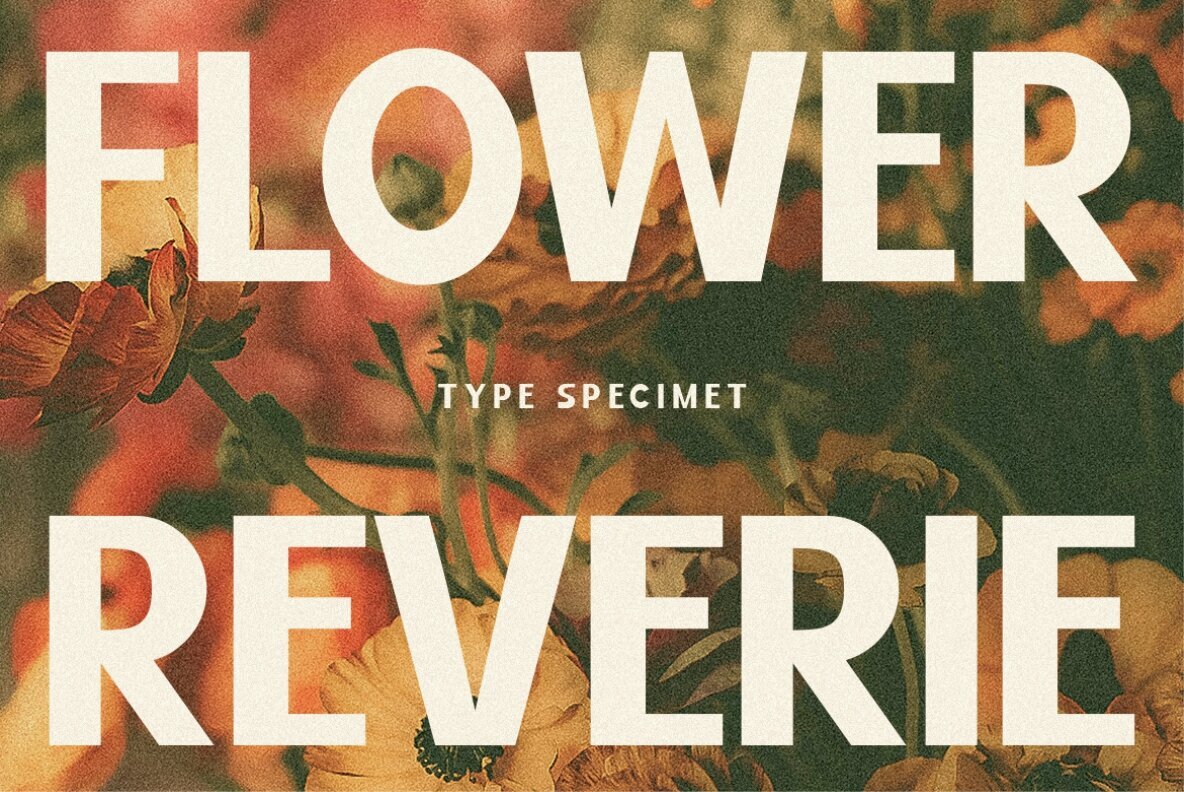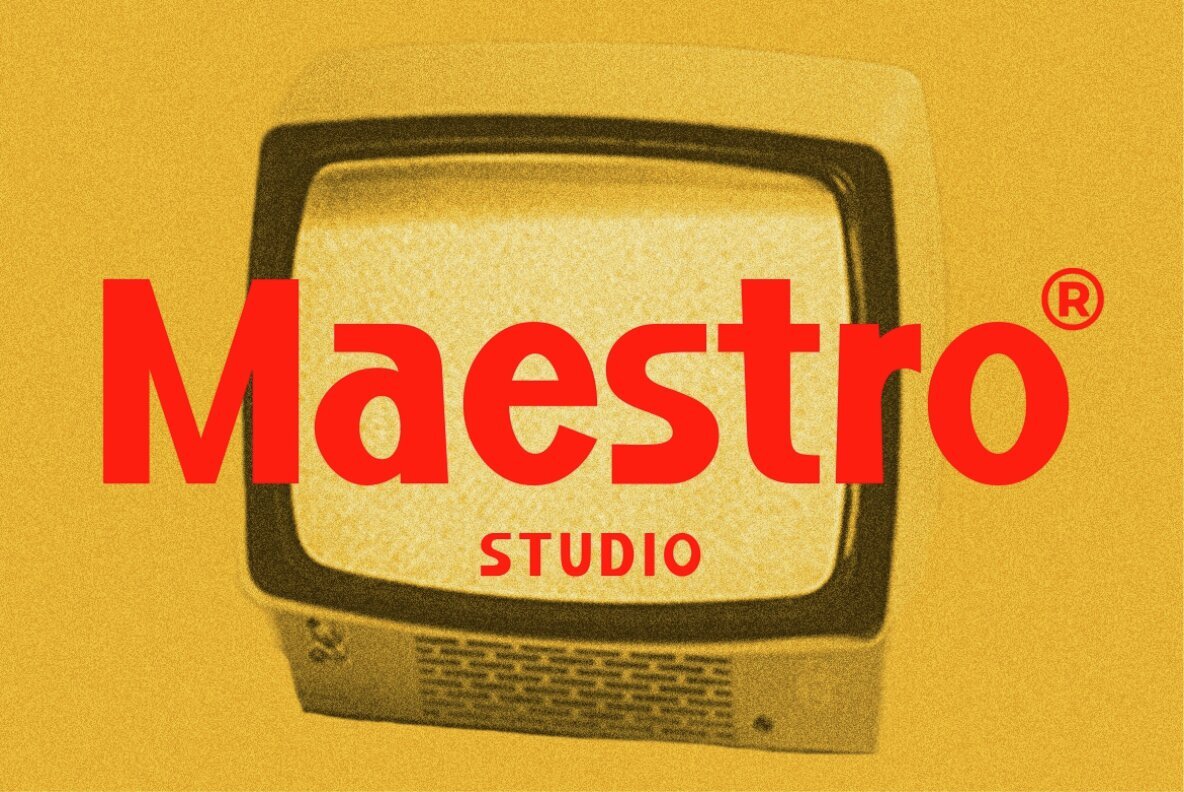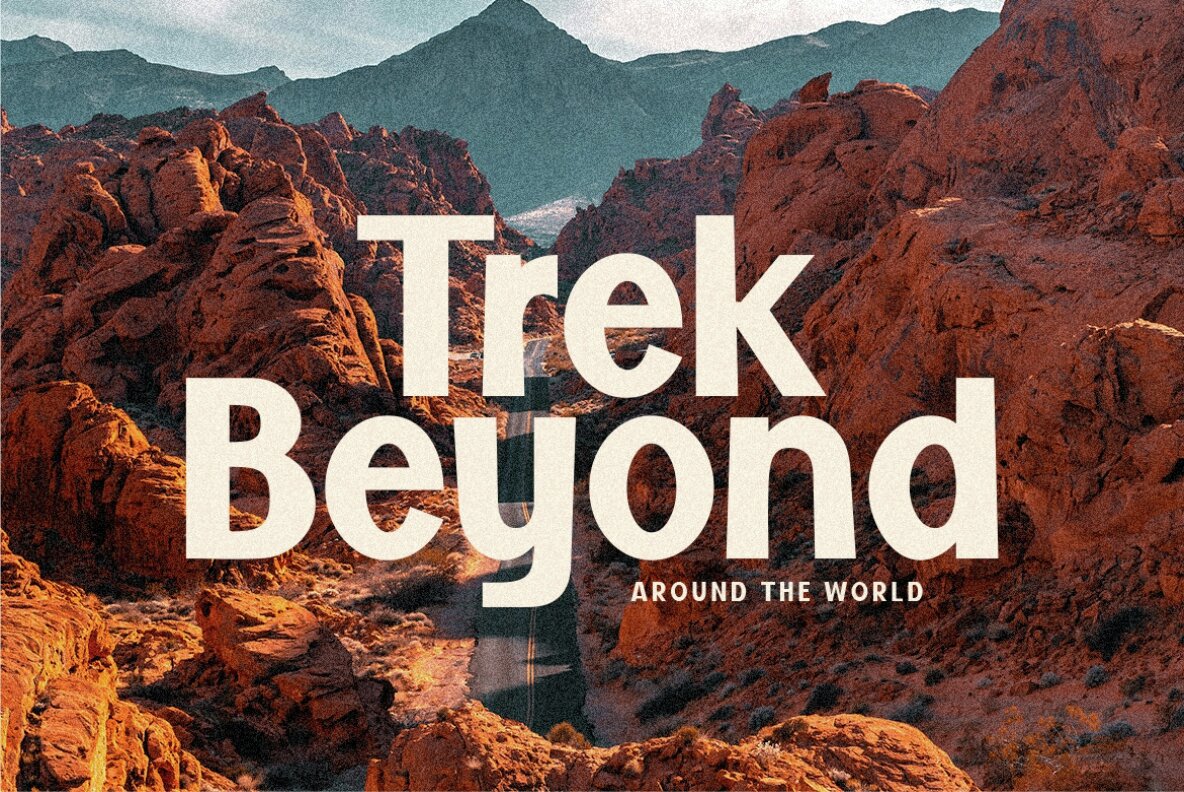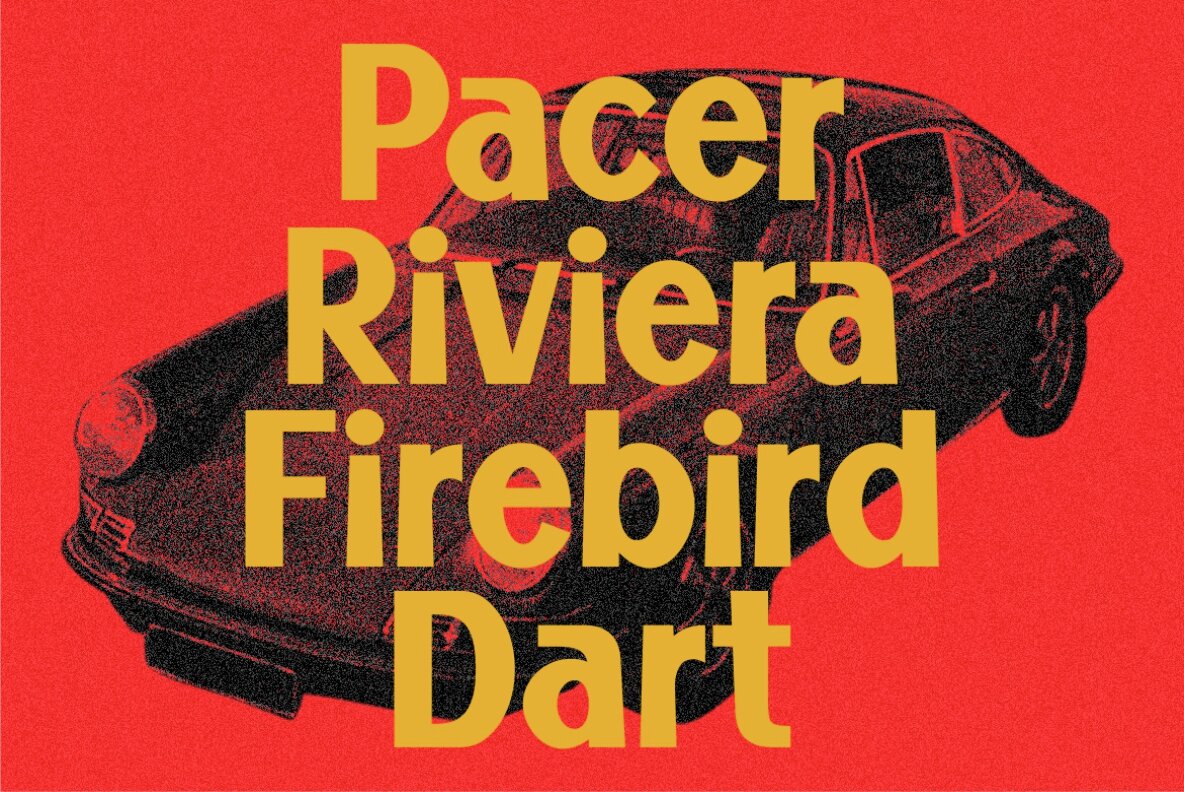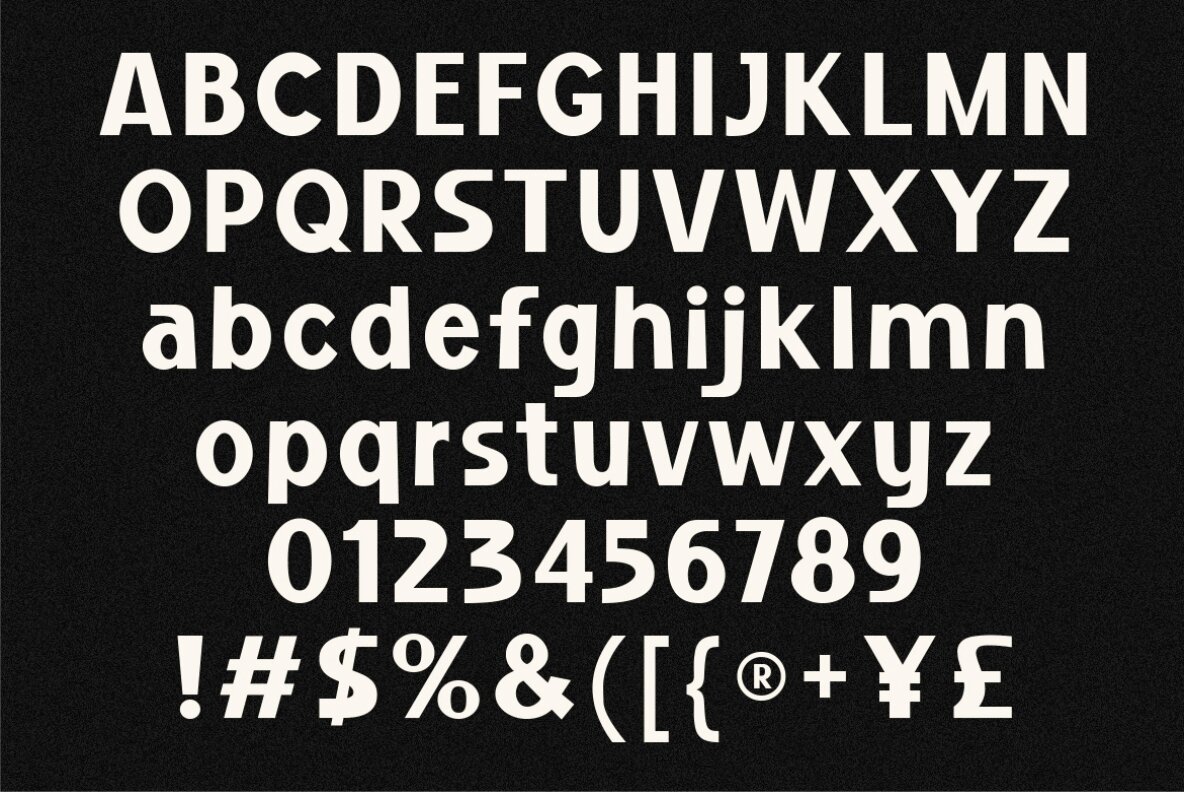
TF Galina Font
TF Galina Regular
This font boasts a bold, geometric sans-serif design that encapsulates a modernist and clean aesthetic. Its strong, impactful character shapes are softened by subtle curves, giving it a contemporary feel that makes it suitable for diverse design purposes, ranging from headlines to branding. The font is marked by high contrast, minimalistic detailing, and a dynamic presence that ensures readability and visual interest.
Teenage Foundry brings playful irreverence and bold character to contemporary type design. Known for high-impact display fonts, their work often leans into retro, pop, and offbeat aesthetics—ideal for projects that demand standout personality. From groovy curves to heavy geometric forms, their catalog spans a...